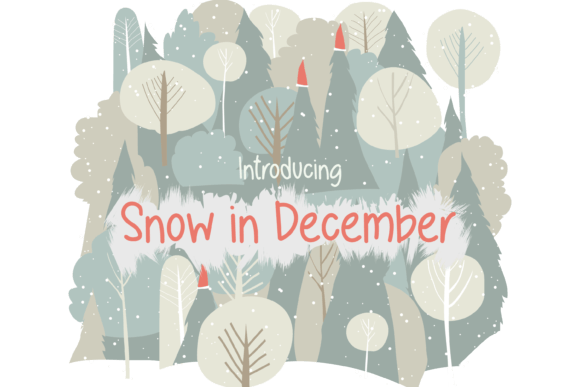
Introducing Snow in December, the most enchanting script font that will transform your winter designs into a whimsical wonderland. This delightful creation from GookkisStudio captures the magic of a snowy day, evoking a sense of joy, warmth, and nostalgia.
With its charmingly casual style and playful personality, Snow in December is the perfect choice for creating cozy winter invitations, heartwarming holiday cards, captivating social media posts, and enchanting branding materials. Its elegant Latin characters dance across the page like delicate snowflakes, adding a touch of winter magic to every design.
Imagine the excitement on your loved ones' faces when they receive a heartfelt Christmas greeting penned in the charming Snow in December font. Its lovely handwritten style will make them feel like they're wrapped in a warm blanket on a cold winter's night.
Whether you're a seasoned designer or just starting out, Snow in December is incredibly versatile and easy to use. It pairs beautifully with other fonts, allowing you to create stunning typographic compositions that will make your designs stand out from the crowd.